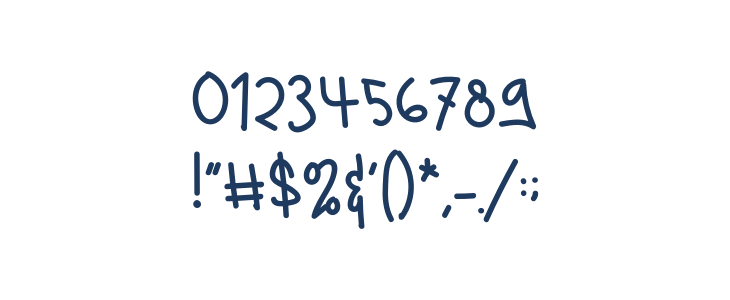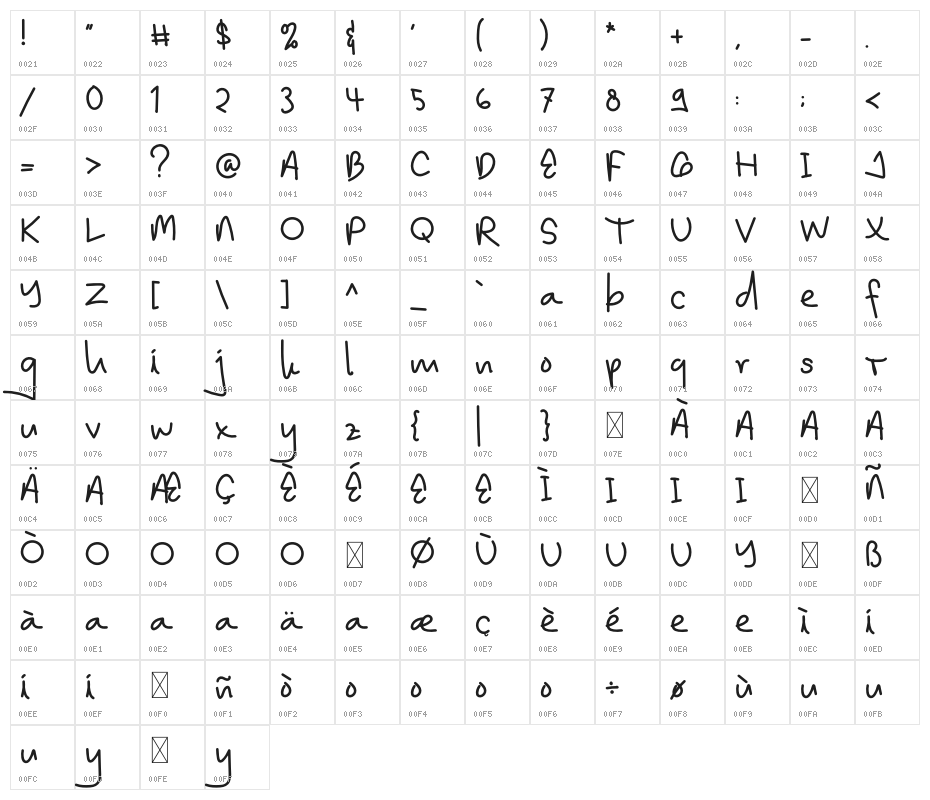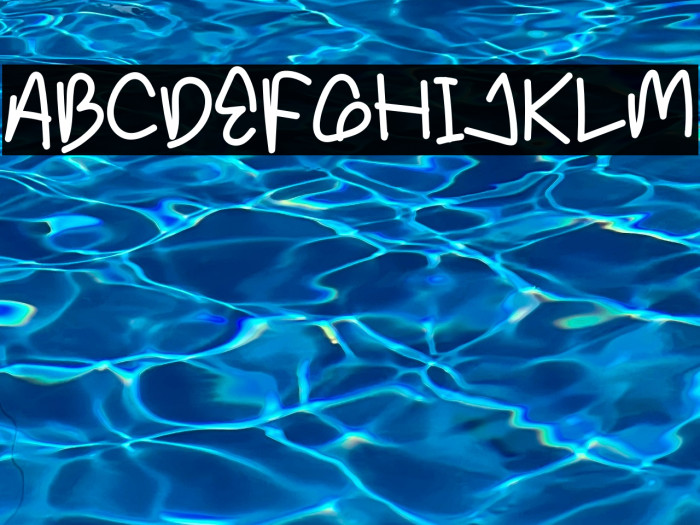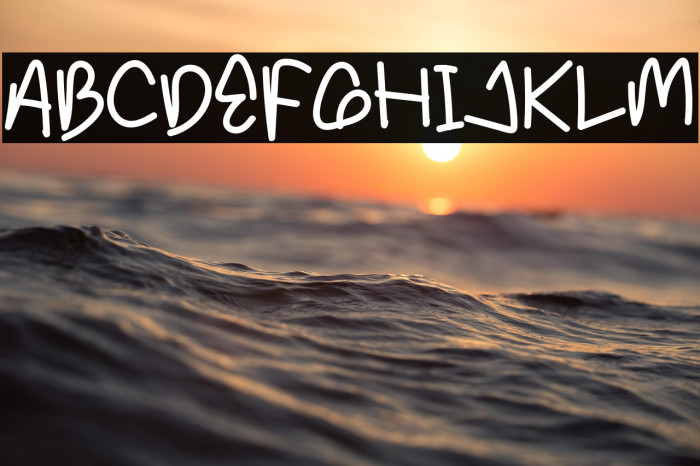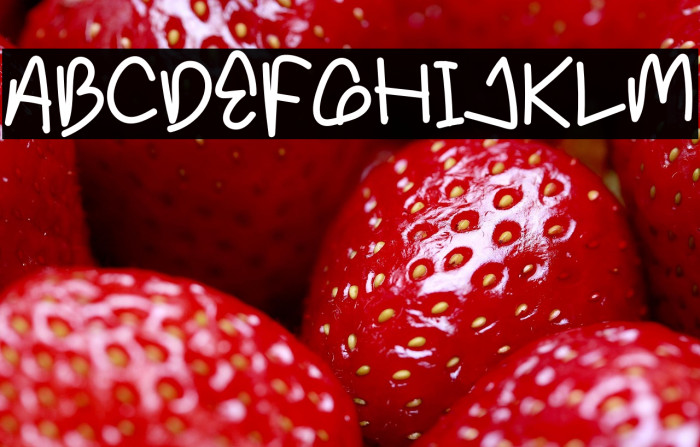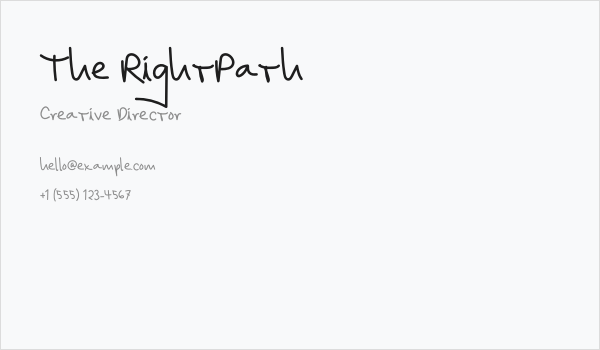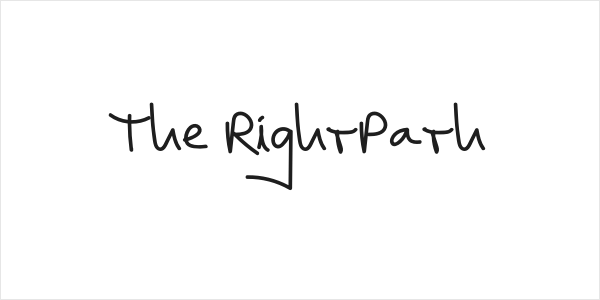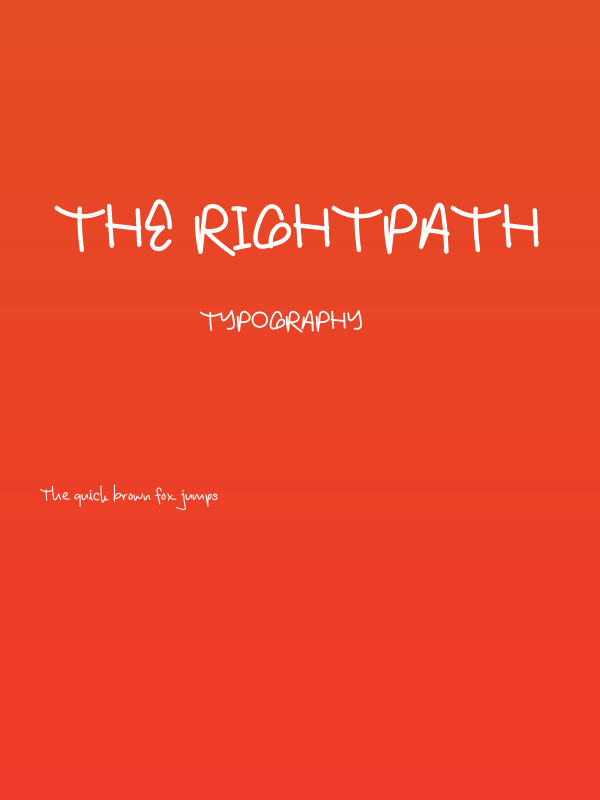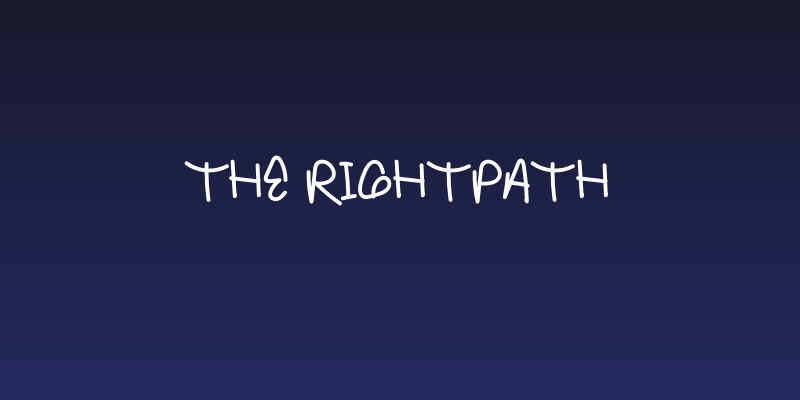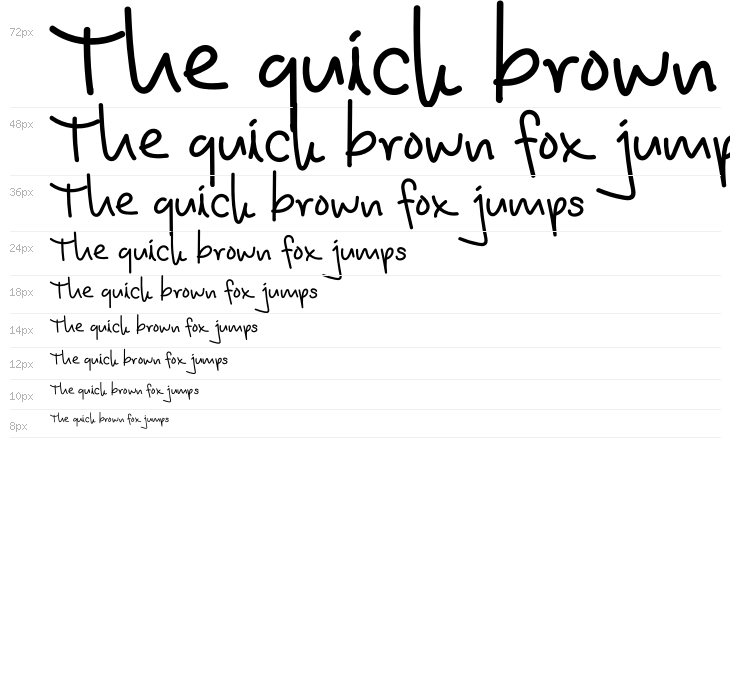
The RightPath Font
The RightPath Description
This font features a playful and casual handwritten style, characterized by its irregular and dynamic strokes. The letters have a slightly uneven baseline, adding to the informal and approachable feel. The uppercase and lowercase letters are distinct, with a noticeable slant that gives the text a lively appearance. The numerals and special characters maintain the same whimsical style, ensuring consistency across all elements. This font is ideal for projects that require a personal touch or a relaxed vibe.
| Overall Style | Casual |
| Use Case | Logos, Headlines, Informal text |
| Proposed Projects | Ideal for greeting cards, personal blogs, children's books, and informal branding. |